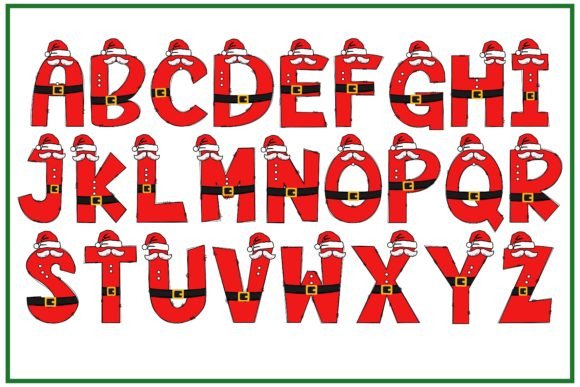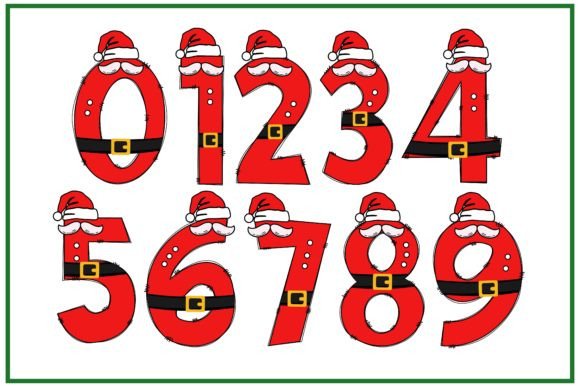
Introduction to Santa Here Font
As the holiday season approaches, many of us are scrambling to find the perfect design resources to bring our creative projects to life. Whether you’re a seasoned designer or a crafty parent, the search for the right font can be a daunting task. But what if I told you that I’ve found the perfect addition to your design arsenal – the Santa Here Font?
This adorable color font is more than just a fun addition to your project – it’s a game-changer. With its playful Santa hats and high-quality design, it’s the perfect choice for any Christmas project, children’s activity, or school project. And the best part? It’s incredibly easy to use, thanks to its compatibility with popular design software like PhotoShop, Illustrator, and Inkscape.
As a valuable design resource, the Santa Here Font offers a transparent background, making it easy to customize and use in a variety of creative ways. And with its free download option, you can get started right away on your next project. Whether you’re looking for a unique design element or a fun way to add some personality to your project, the Santa Here Font is a must-have for any designer or crafty enthusiast.
Key Features of Santa Here Font
- Includes a range of characters and symbols, making it suitable for various design applications.
- Designed with a unique, festive style, perfect for holiday-themed designs and projects.
- Supports a wide range of languages, including English, Spanish, French, and more.
- High-resolution design, ideal for printing and digital use, with a resolution of 300 DPI or higher.
Honest Review: Santa Here Font
I recently stumbled upon the Santa Here Font, a unique design resource that caught my attention. As a designer, I appreciate high-quality fonts that can elevate my creative projects. In this review, I’ll share my honest thoughts on this font.
- Unique design: The Santa Here Font boasts a distinctive style that’s perfect for holiday-themed projects or those requiring a playful touch.
- Transparent background: The font’s transparent background allows for easy layering and editing, making it a breeze to use in creative projects.
- Limited usage: While the font is perfect for holiday-themed projects, it may not be the best choice for more serious or formal designs.
- Limited character set: The font’s character set is relatively small, which may limit its use in longer text-based projects.
Overall, the Santa Here Font is a fun and versatile design resource that’s perfect for creative projects. While it has some limitations, its unique design and free download make it an excellent addition to any designer’s toolkit. I’d recommend it for holiday-themed projects or those requiring a playful touch.
Santa Here Font
The Santa Here Font is a high-quality design resource perfect for your creative project. It’s a free download that offers a transparent background, making it easy to customize and use in various design applications.
The Santa Here Font is perfect for a variety of use cases, including:
Does Santa Here Font have a transparent background?
Yes, Santa Here Font has a transparent background, making it ideal for use on various backgrounds, from solid colors to images. This feature allows designers to create visually appealing and cohesive designs with ease.